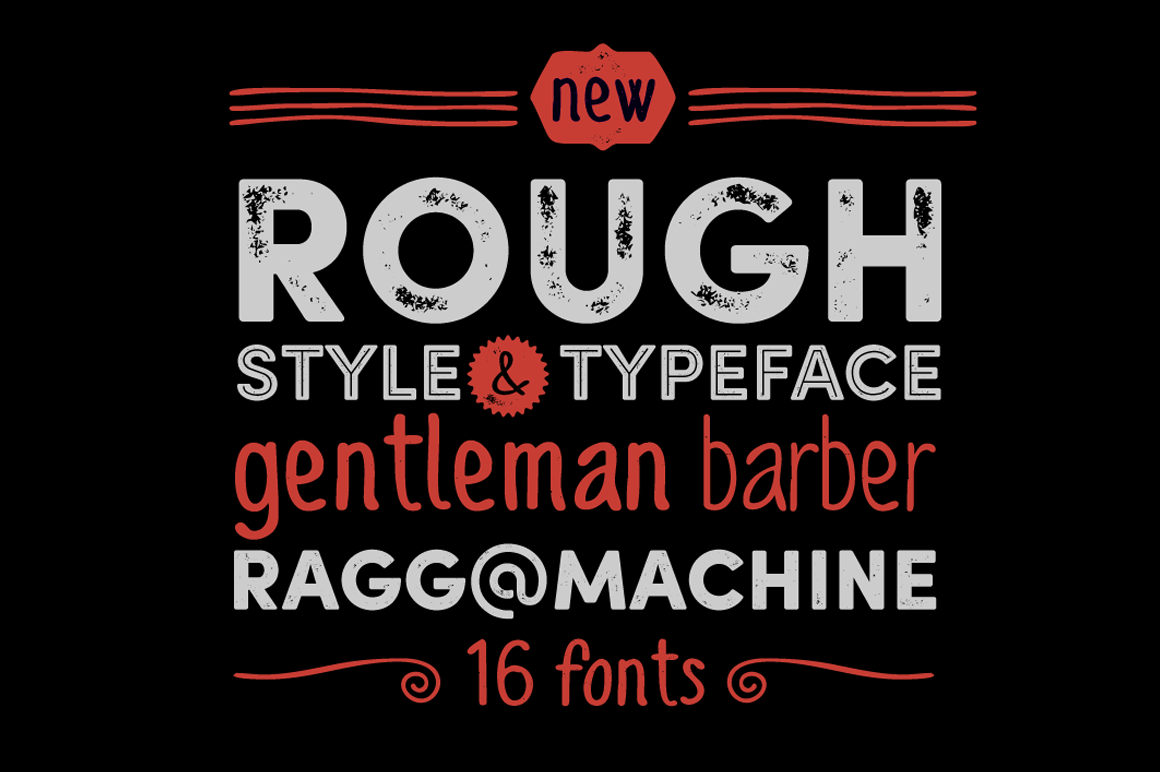
Sofia Rough Font Family
Based on the popular Sofia Pro typeface, Sofia Rough is a multifaceted font family with differents eroded variations. Sofia Rough contains sixteen fonts and two eroded sub families. With Sofia Rough Black for uppercase and Sofia Rough Script for lowercase you can create many variations. It has also several layers like shadows, inline or outline to create unique design. Sofia Rough contains also more than 80 extra graphics such as catchwords, ornaments, emblems, decorative lines, stars and many more.
- Sofia Rough Black One
- Sofia Rough Black Two
- Sofia Rough Black Three
- Sofia Rough Black Shadow One
- Sofia Rough Black Shadow Two
- Sofia Rough Black Inline
- Sofia Rough Shadow One
- Sofia Rough Shadow Two
- Sofia Rough Extras
- Sofia Rough Script Regular
- Sofia Rough Script Bold
- Sofia Rough Script One
- Sofia Rough Script Two
- Sofia Rough Script Outline
- Sofia Rough Script Shadow Regular
- Sofia Rough Script Shadow Bold